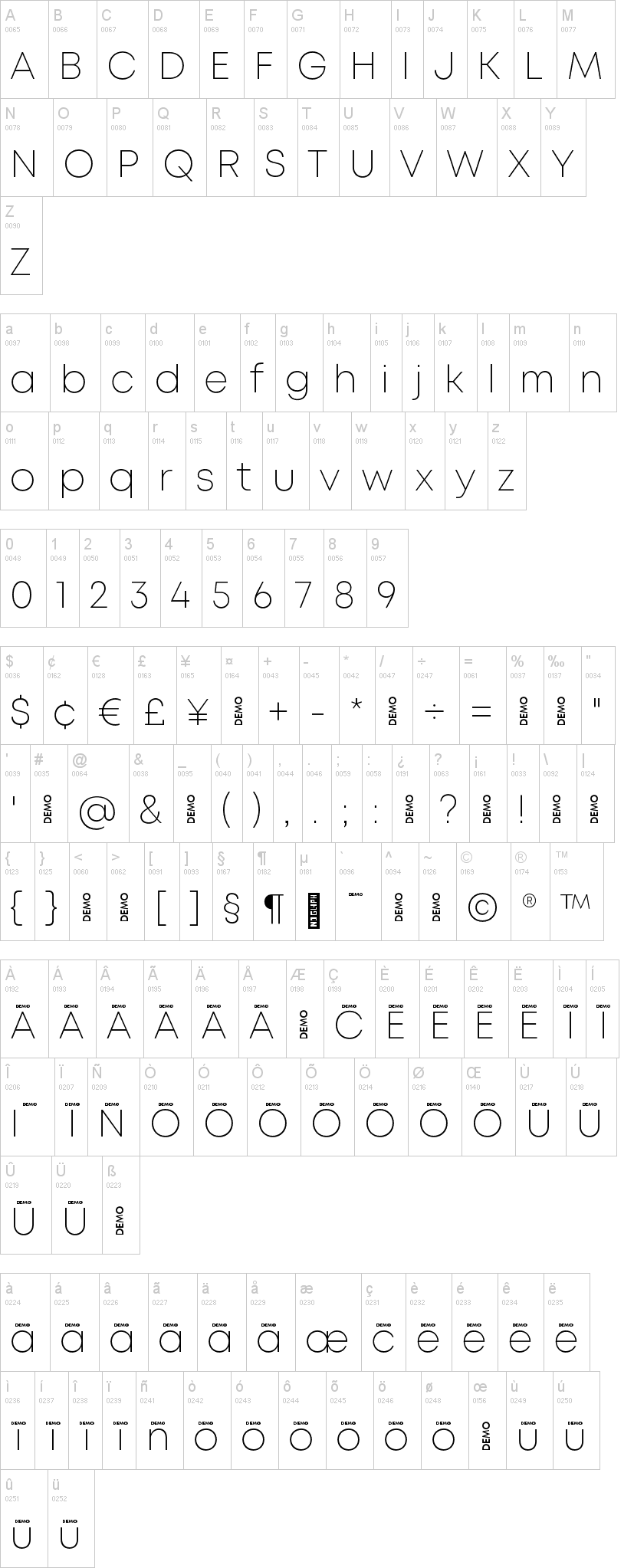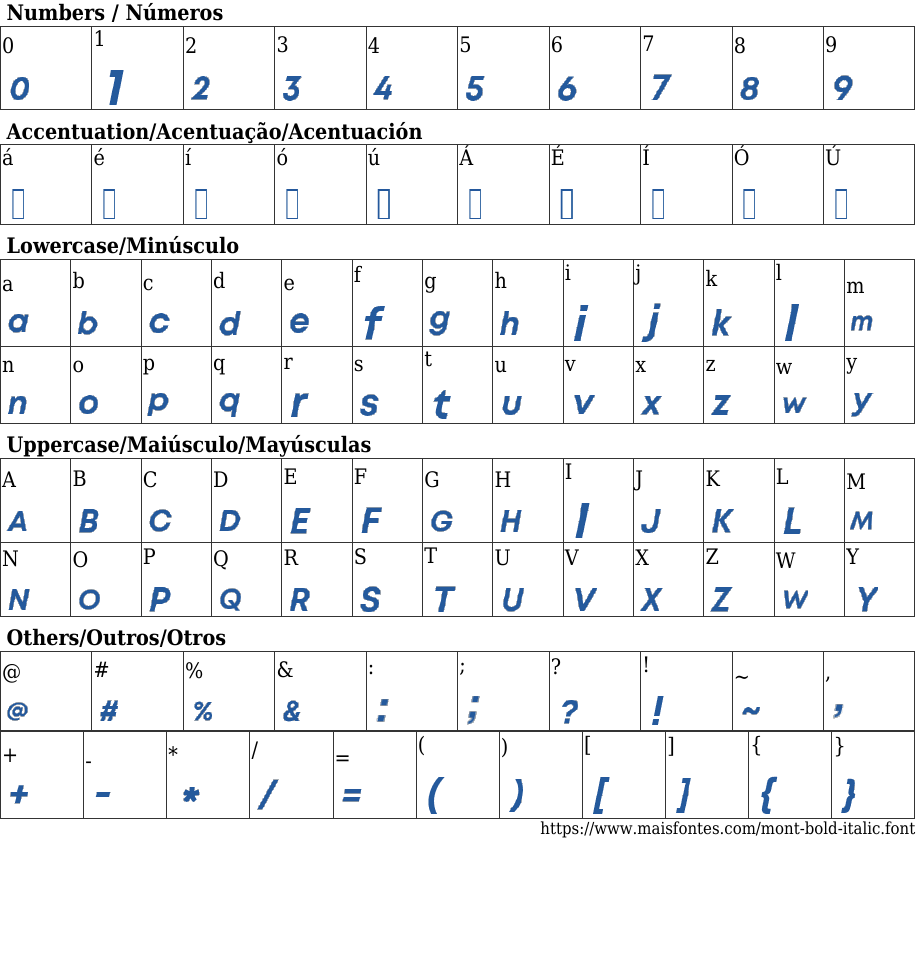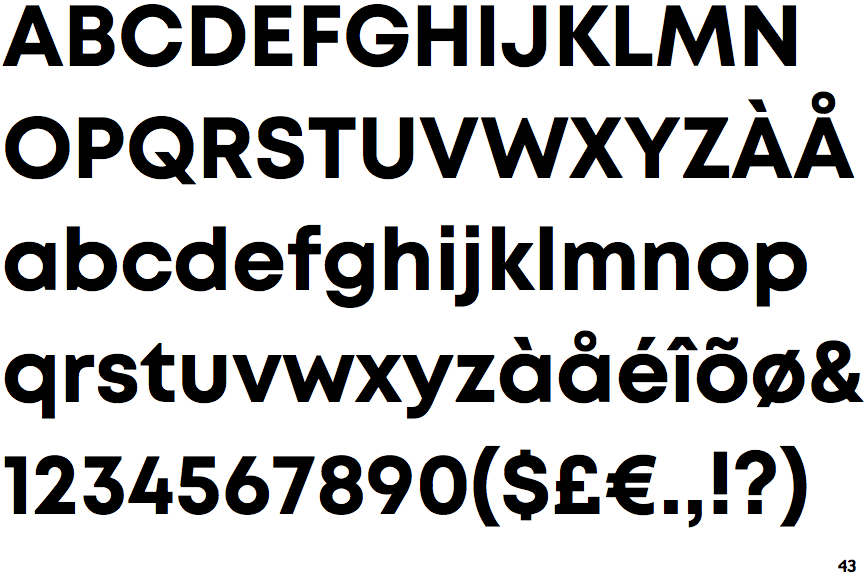
Mont Bold Font - Mont is a free font by fontfabric that can be used for personal and commercial purposes. Mont bold by modern and elegant sans serif font family. It has 20 styles and 575 glyphs, and is available for.